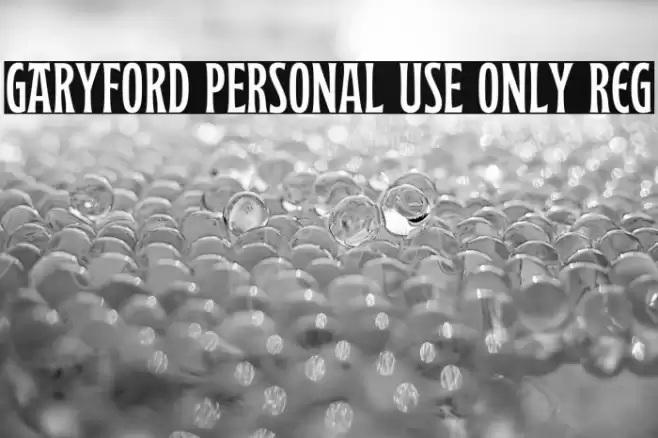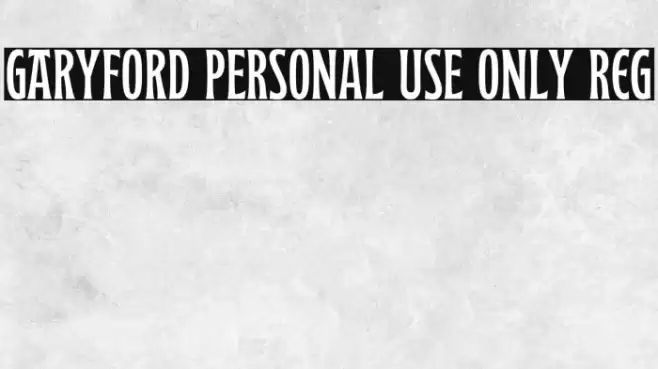
Garyford PERSONAL USE ONLY Reg Font
Garyford PERSONAL USE ONLY Reg Description
This font features a bold and dynamic style with a distinctively playful and slightly retro feel. The characters are tall and narrow, giving it a condensed appearance, while the strokes are thick and consistent, providing a strong visual impact. The uppercase letters are particularly striking, with a slight curve to the vertical lines that adds a touch of whimsy. The numerals and special characters maintain the same boldness and style, ensuring a cohesive look across all text. This font is well-suited for attention-grabbing headlines and titles, where its unique style can shine.
A bold, condensed font with a playful, retro style from Regular fonts.
- Proposed Projects: Ideal for posters, logos, and branding materials that require a bold and distinctive look.
- Overall Style: Retro, Playful